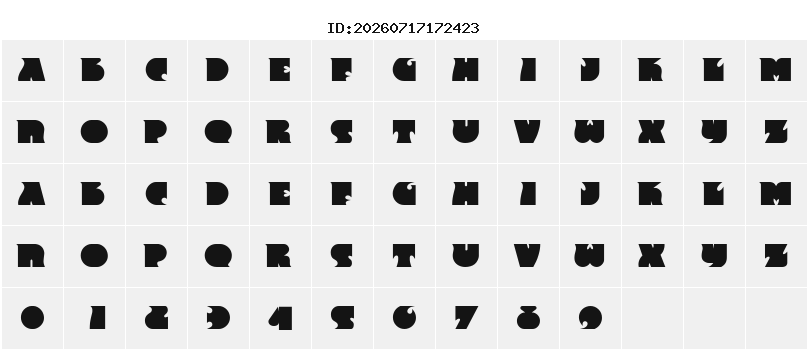
• Font Name: Big Moma SF
• Full Font Name: Big Moma SF
About Big Moma SF.ttf
Big Moma SF.ttf is a modern, elegant sans-serif font designed for ultimate readability and visual harmony. Perfect for branding, headlines, web design, and print materials.